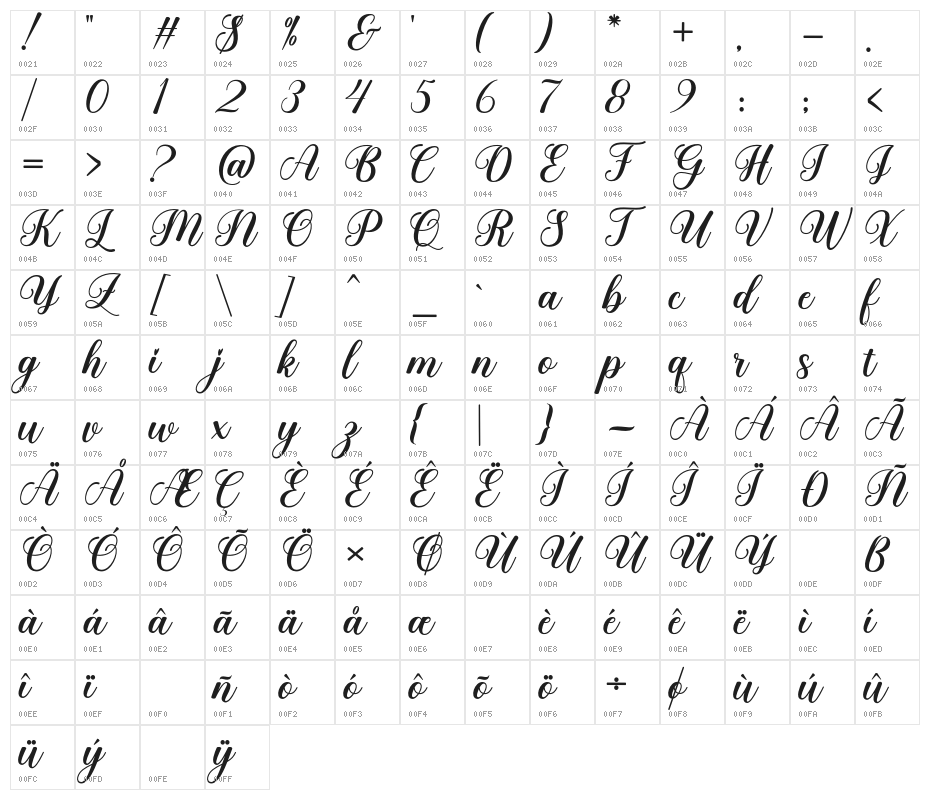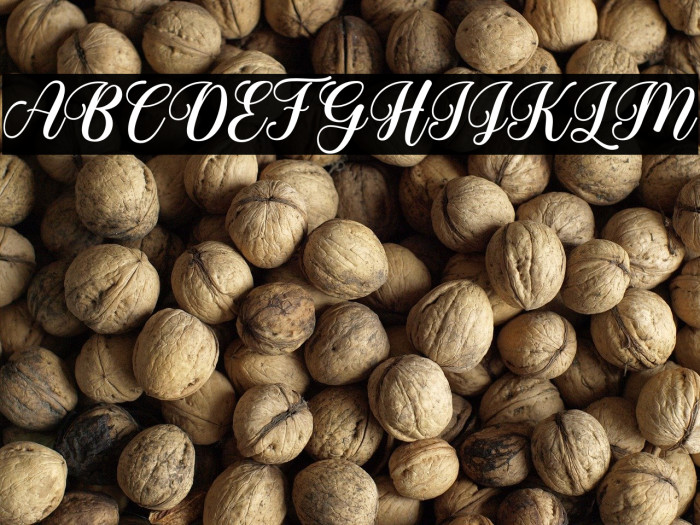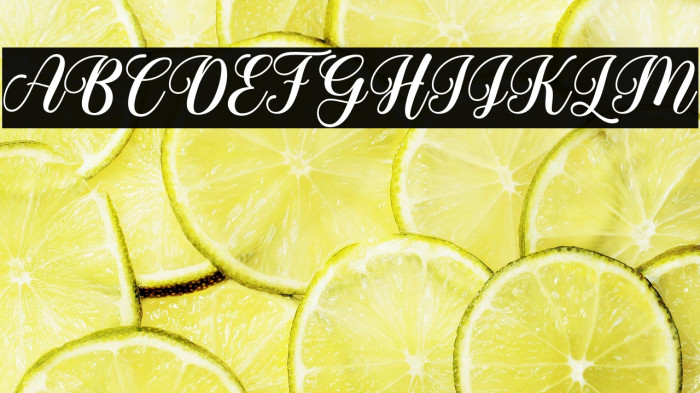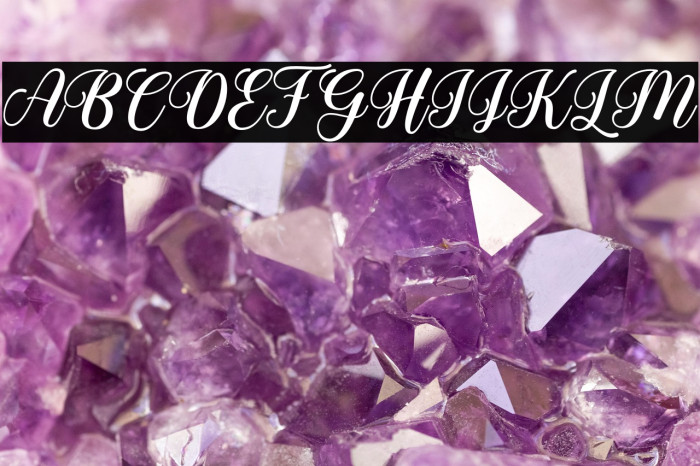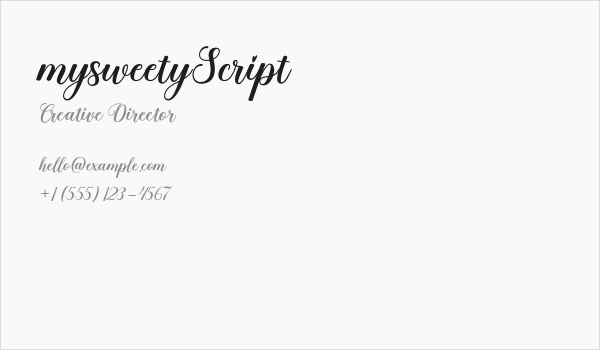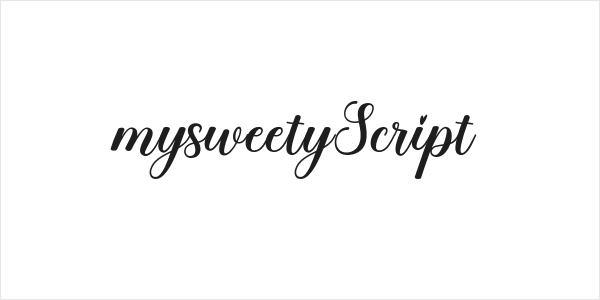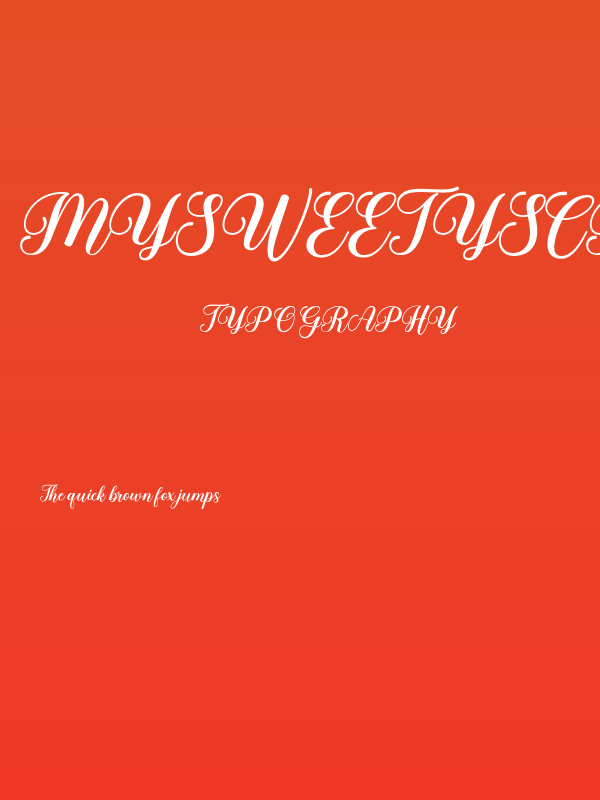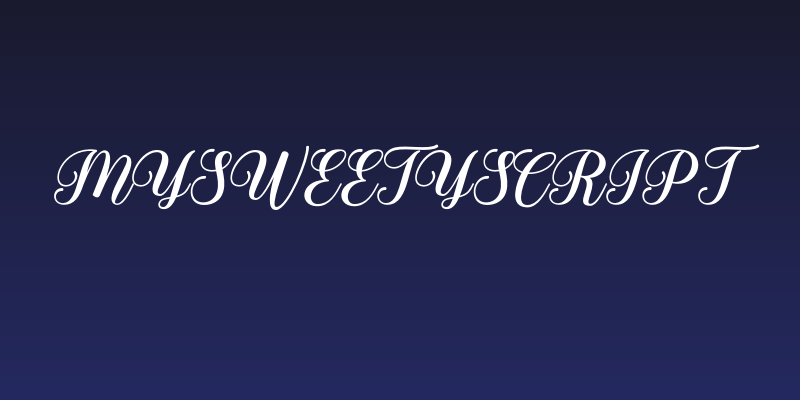
mysweetyScript Font
mysweetyScript Description
This elegant script font features flowing, interconnected letters that exude a sense of sophistication and grace. The uppercase letters are characterized by their sweeping curves and ornate flourishes, while the lowercase letters maintain a consistent fluidity, enhancing readability. The numerals are stylishly designed, matching the overall aesthetic of the font. Special characters are thoughtfully integrated, maintaining the decorative style. This font is ideal for projects that require a touch of elegance and class, such as wedding invitations, branding, and high-end product packaging.
| Overall Style | Elegant, Sophisticated |
| Use Case | Logos, Invitations, Branding |
| Proposed Projects | Wedding invitations, luxury branding, elegant product packaging, high-end event signage. |